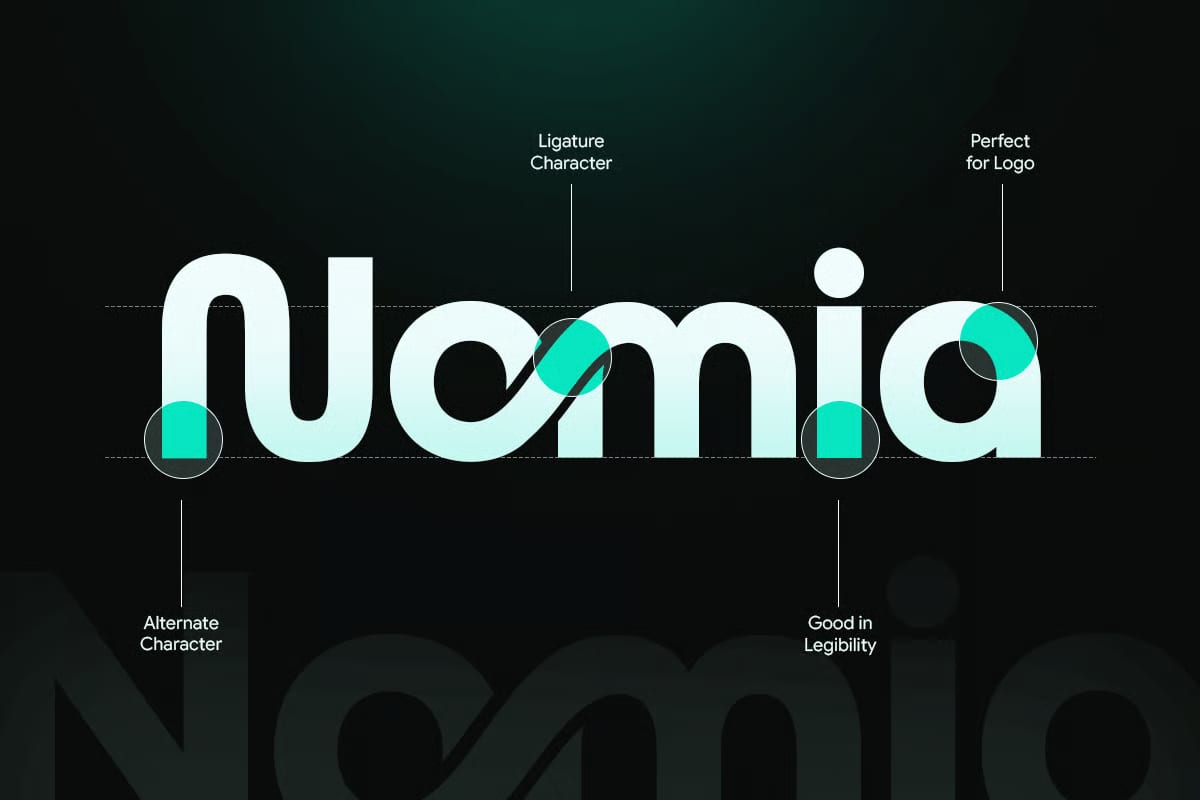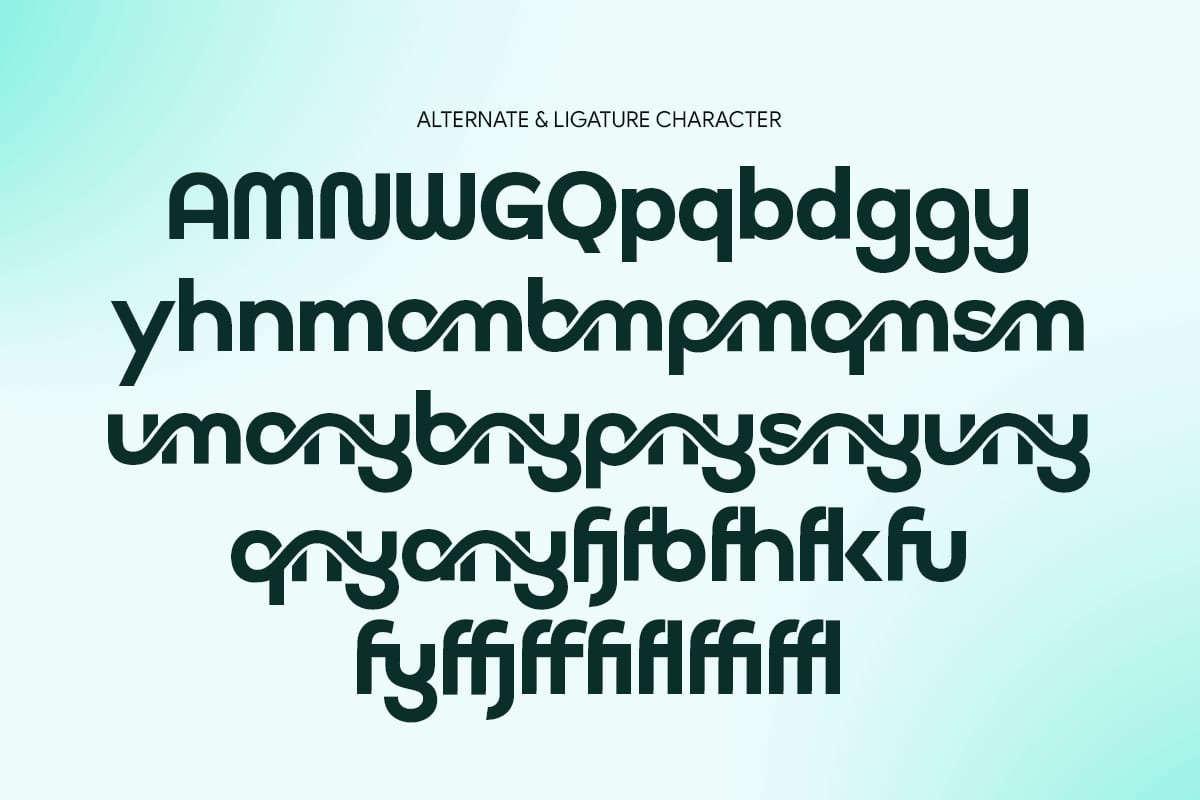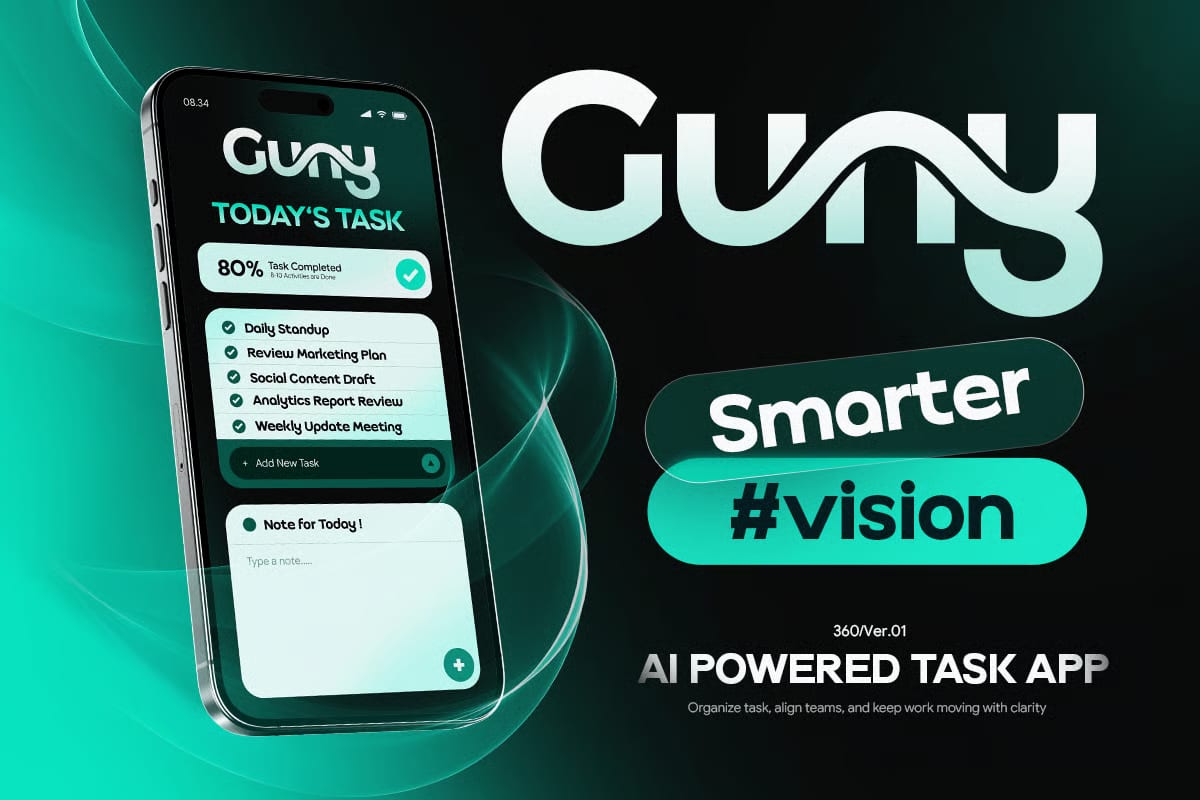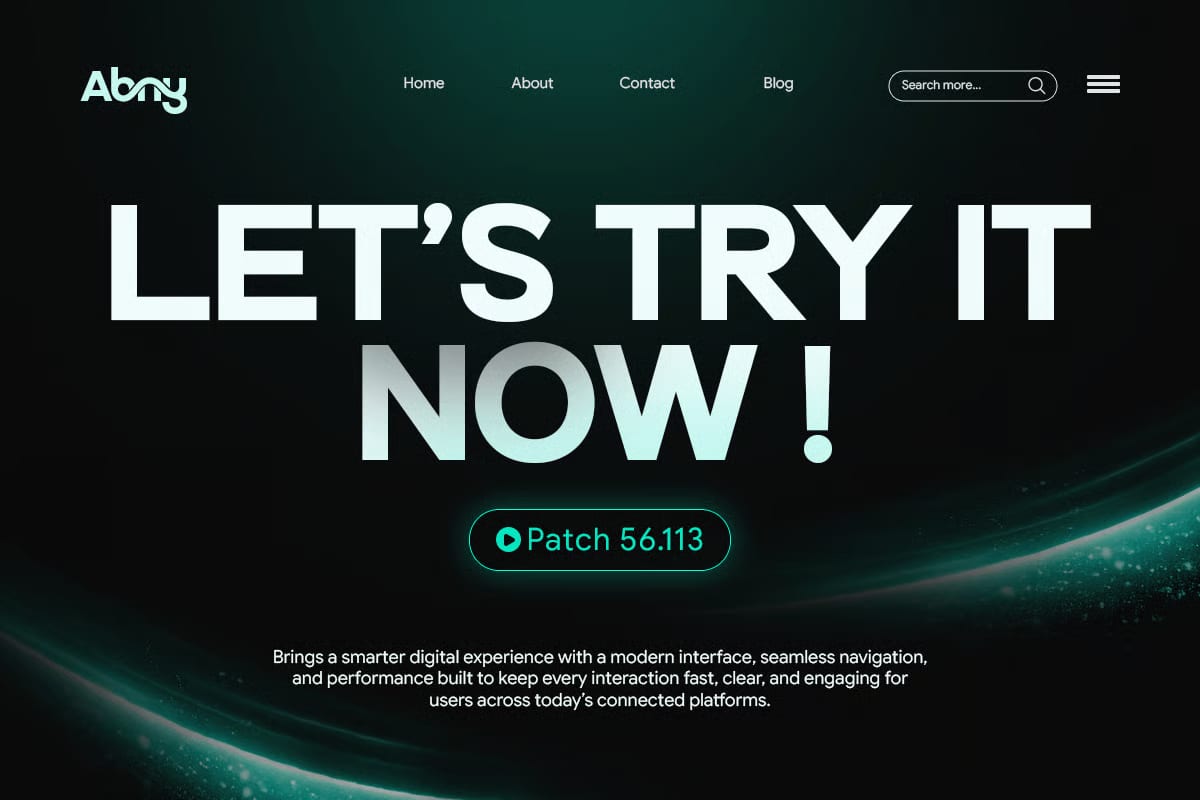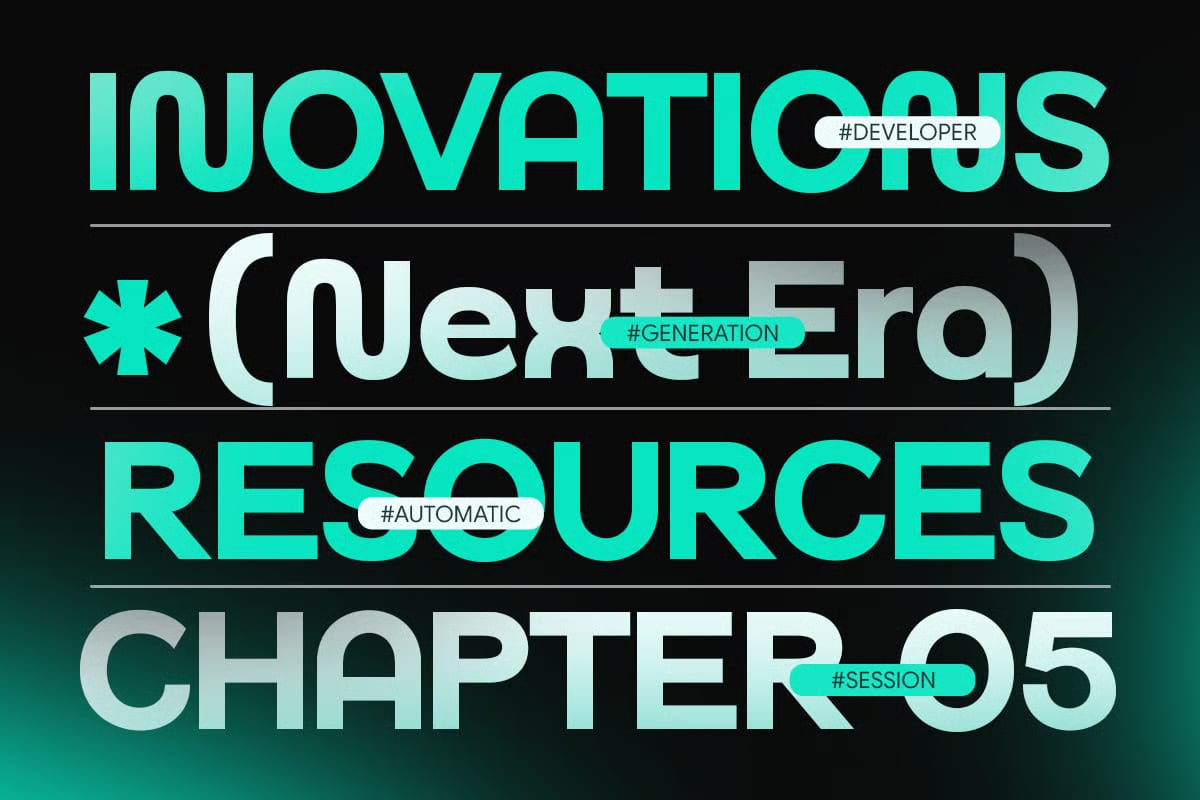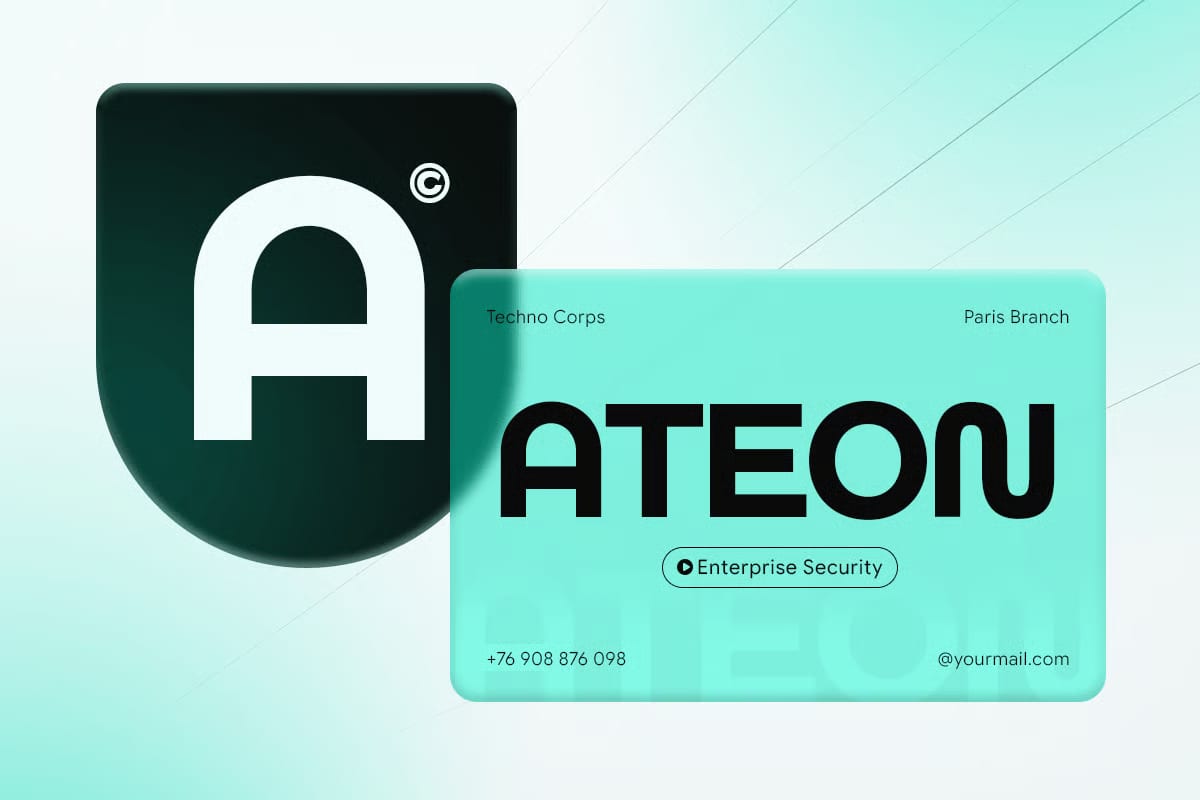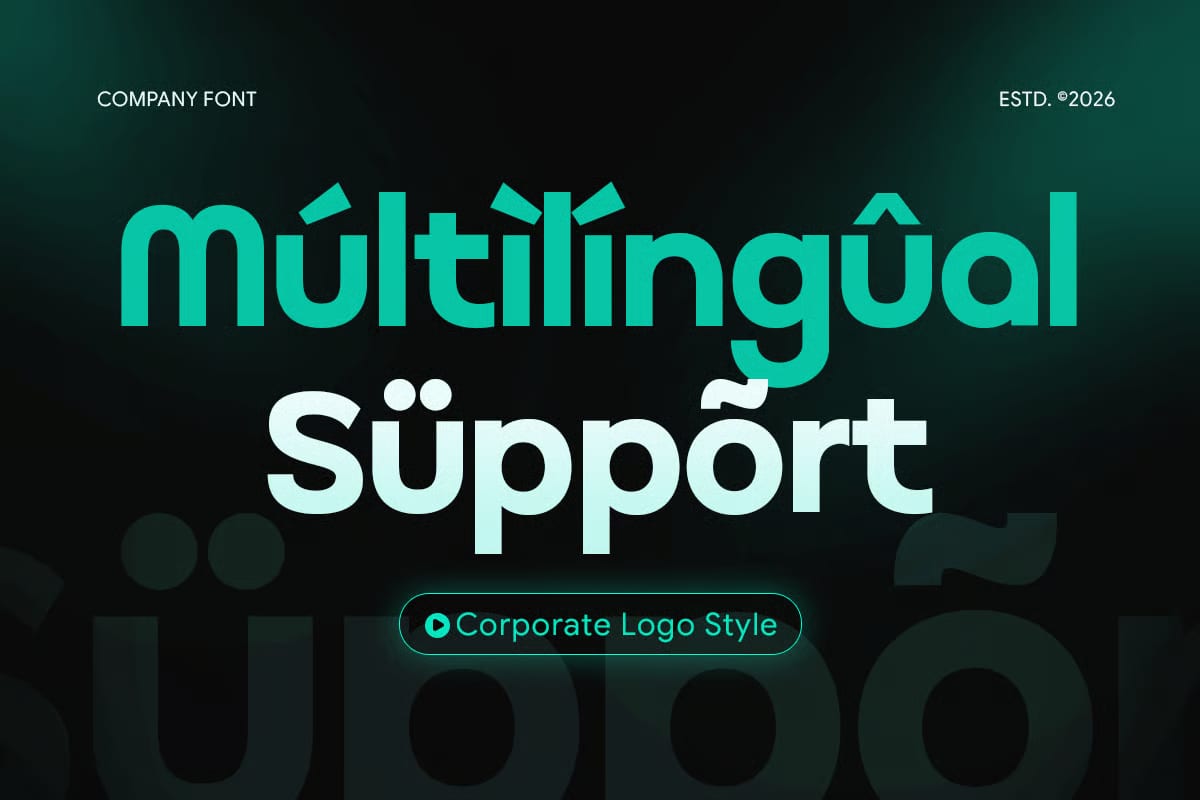
Company is a professional corporate logo font made for clean, trustworthy, and modern business branding. It has balanced letterforms, a clear structure, and a simple minimalist feel, so it works well for logos, brand identity, presentations, marketing materials, and other professional design projects.
Designed for clarity and flexibility, Company stays easy to read in both print and digital use. Its modern corporate style makes it a good fit for startups, agencies, finance brands, technology companies, and designers who need a reliable font for strong brand communication.